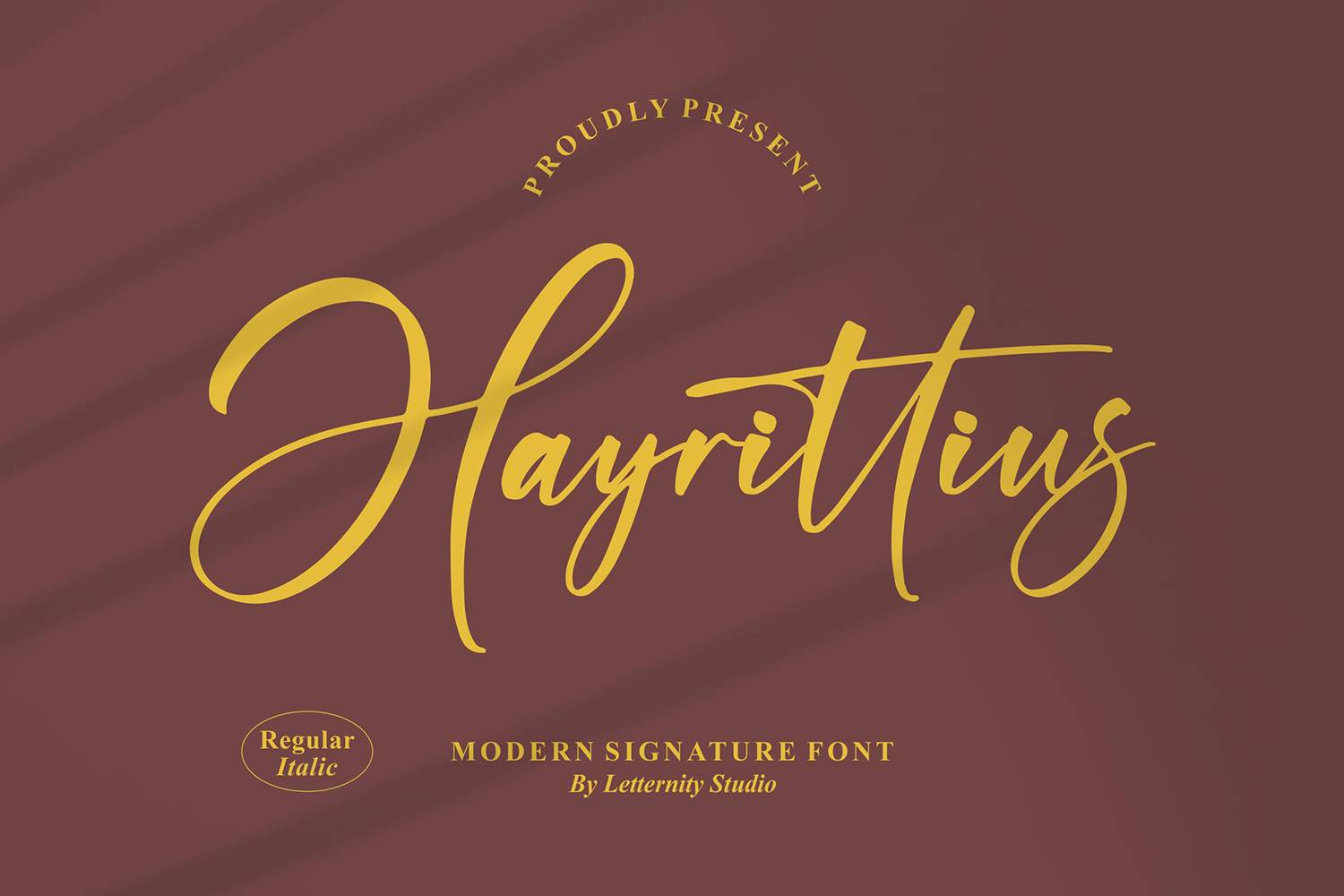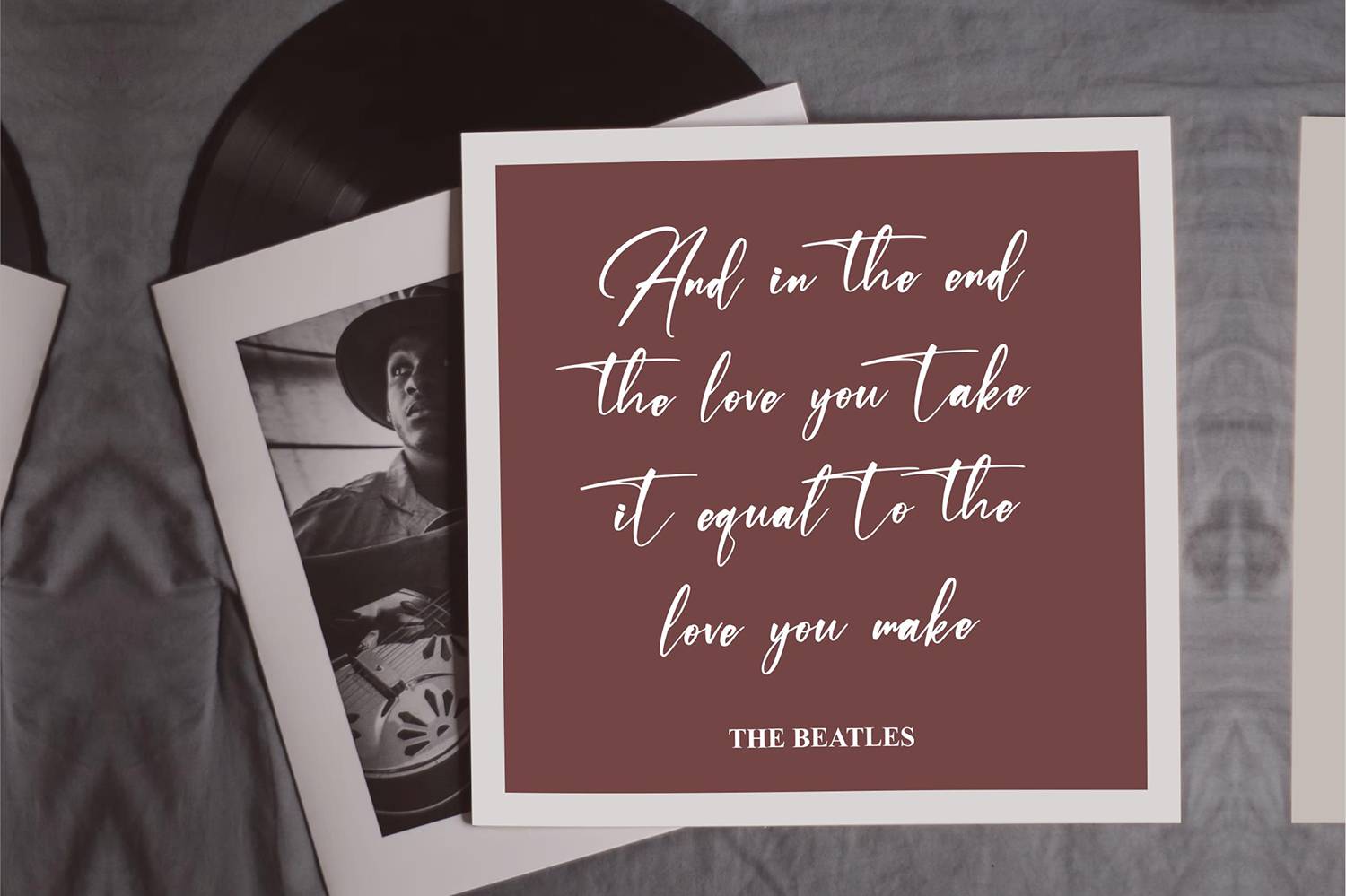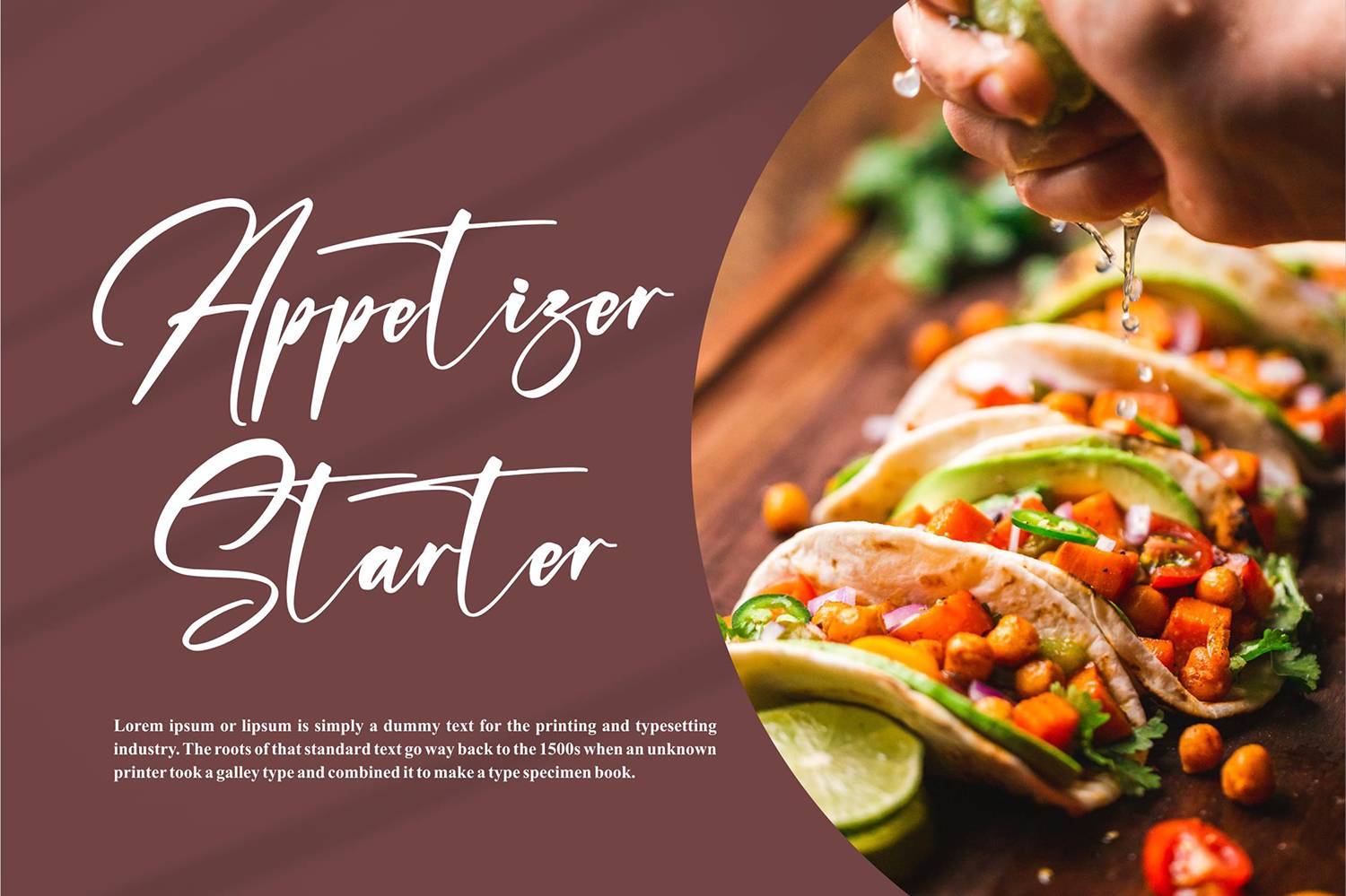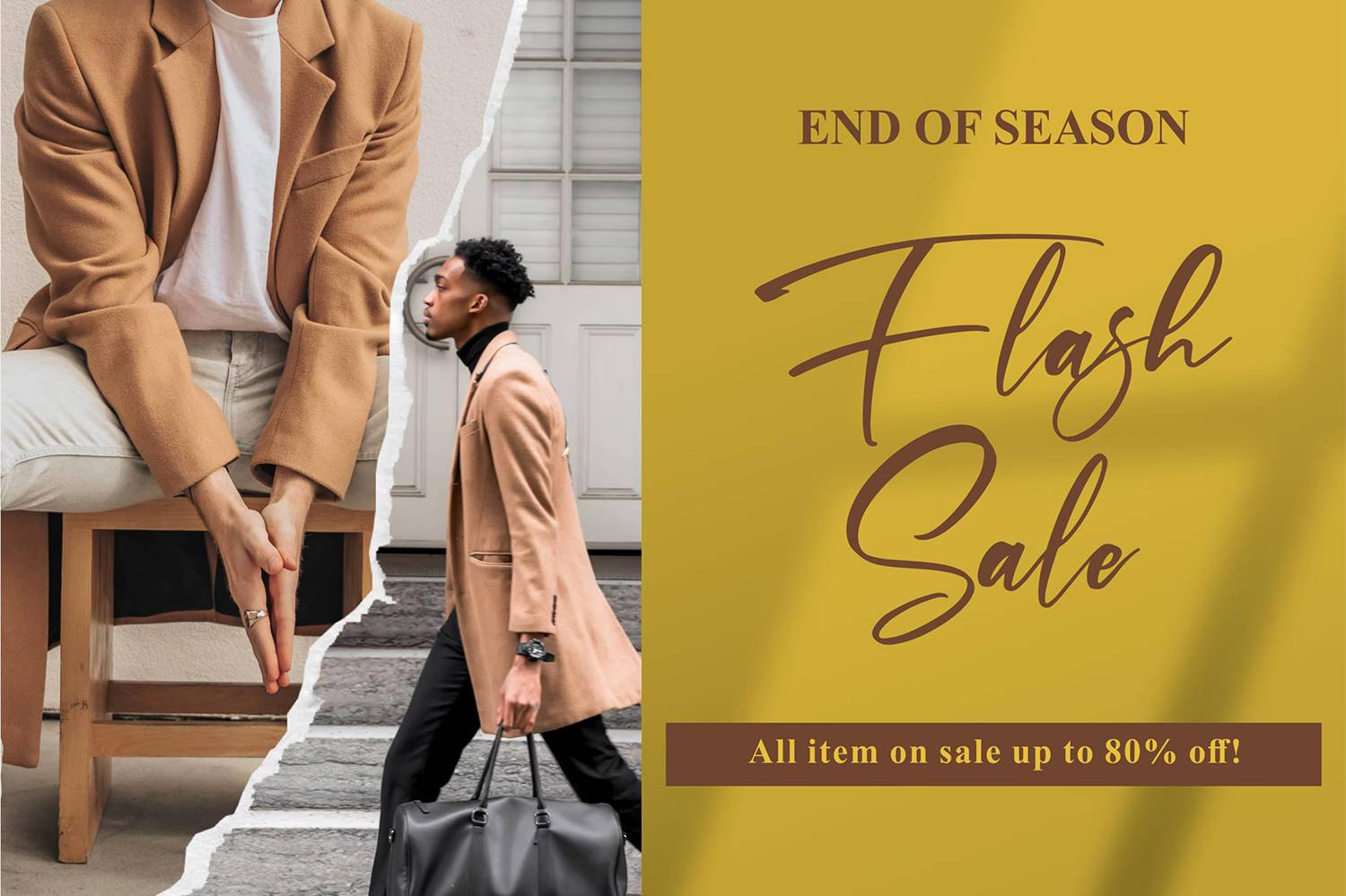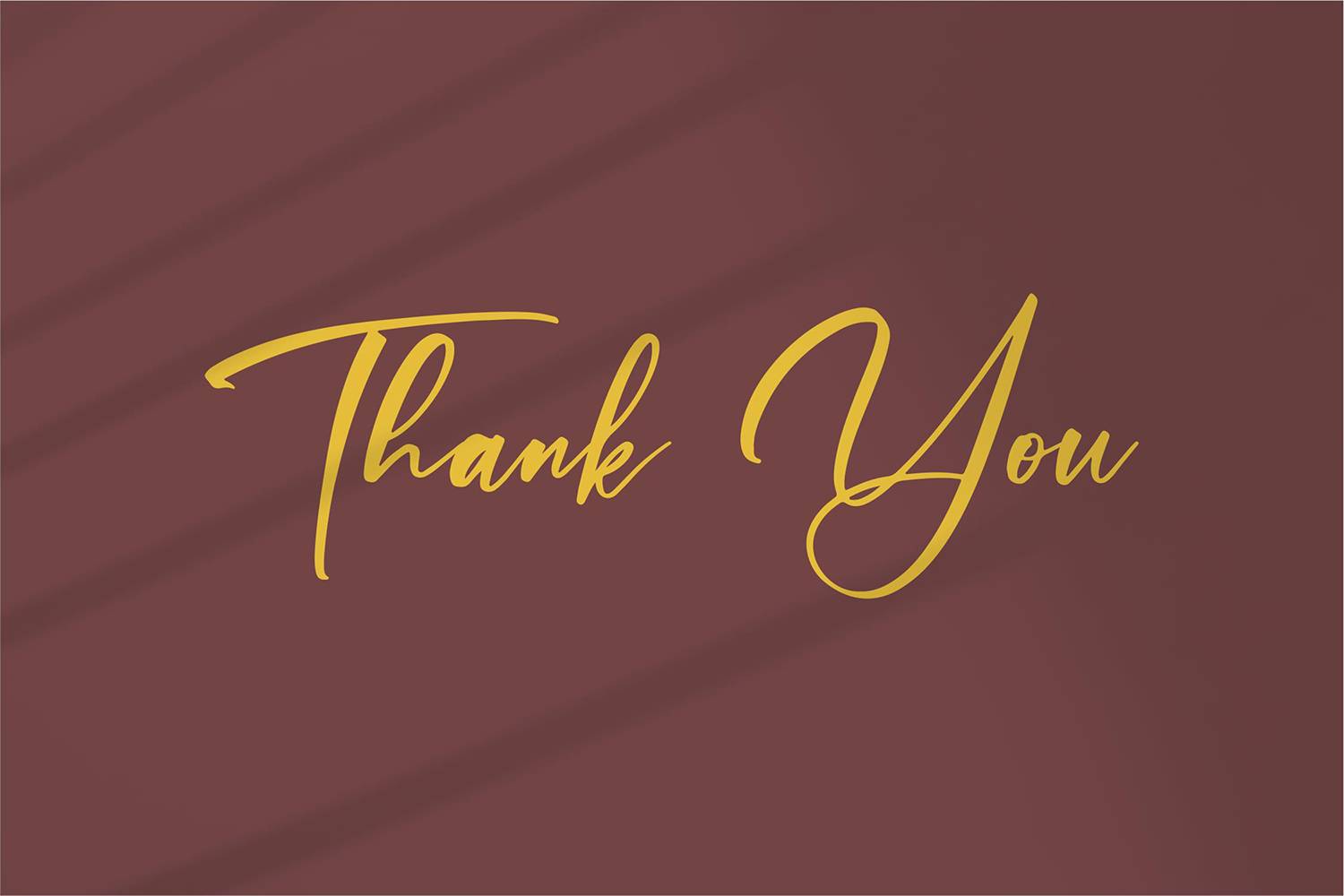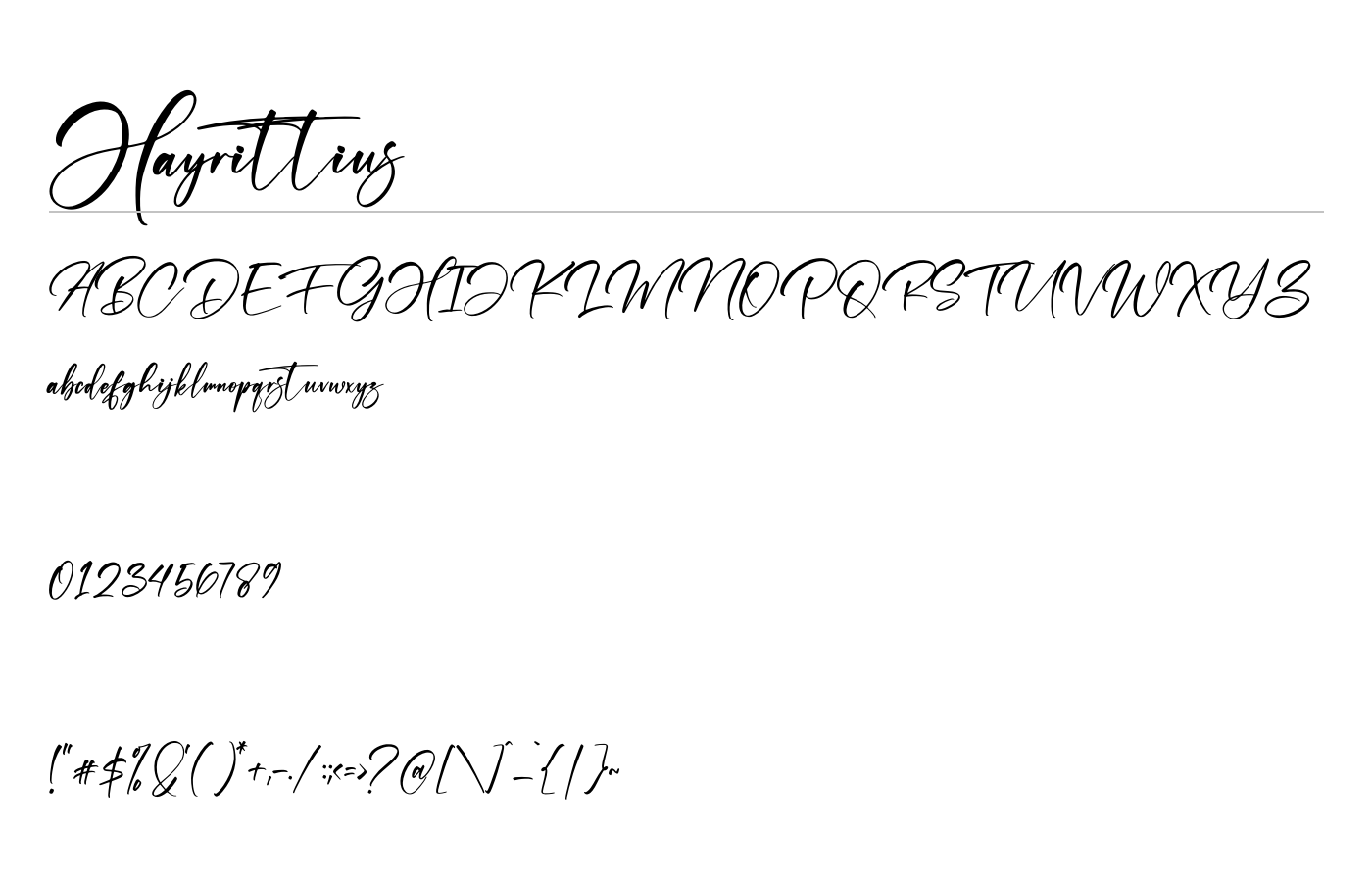
Hayrittius is a delicate and elegant script font featuring flowing, calligraphic strokes with a graceful, handwritten feel. Its slender, slightly varied line weights and tall x-height create a refined and sophisticated appearance, perfect for luxury branding, wedding invitations, and stylish logos where a touch of personal charm is desired. This font’s airy spacing and smooth curves evoke a romantic and modern personality, making it an excellent choice for decorative headlines and elegant packaging.
Hayrittius Font
About Hayrittius Font